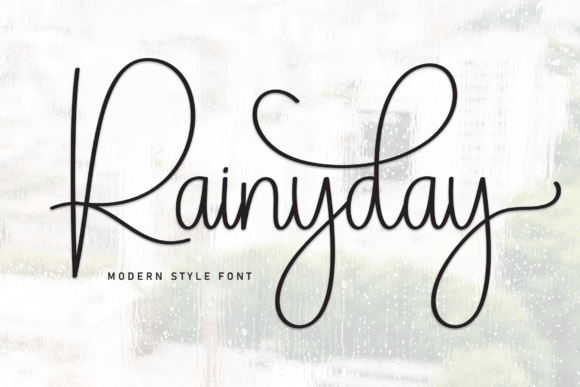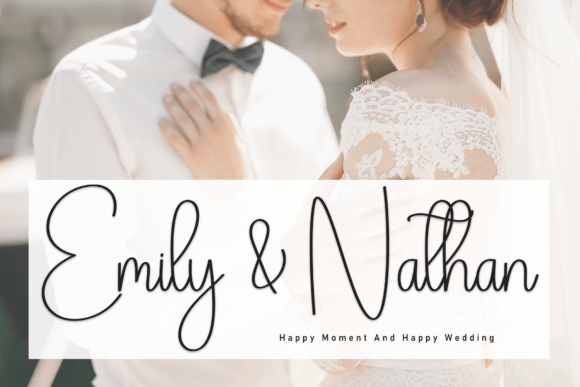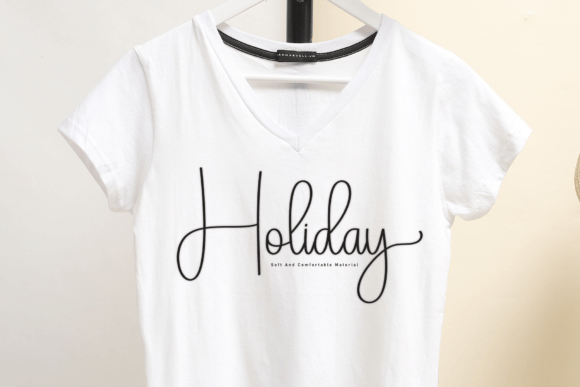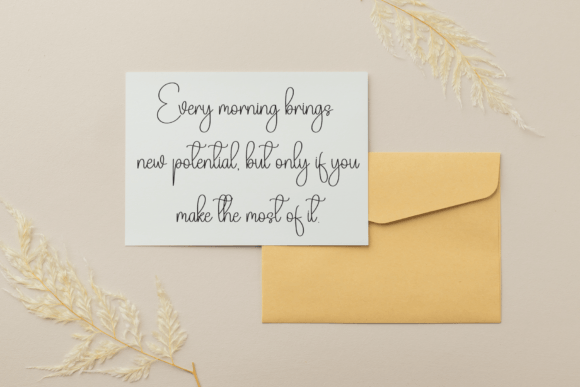
Rainyday Font
About the Rainyday Font
The Rainyday Font is here to transform your projects with its distinctive character and style. Rainyday is a modern and exquisite handwritten font. Stylish, graceful, and flowing, this font will definitely elevate the look of any of your beautiful creations while keeping them grounded and natural.
Rainyday excels in applications requiring a touch of elegance and handcrafted charm. It’s ideal for short headlines, branding elements such as logos and taglines, and even select packaging designs where a sophisticated, yet approachable feel is desired. Consider it for invitations, quotes, or short-form marketing materials. Avoid using it for large blocks of body text or UI elements; its handwritten nature makes extended reading difficult.
Pairing Rainyday effectively requires consideration of its flowing, slightly informal nature. A clean sans-serif like Montserrat or Lato provides a strong contrast and excellent readability for supporting text. For a more playful feel, a rounded geometric sans-serif such as Circular Std could be used. Conversely, a classic serif like Garamond would offer a sophisticated counterpoint, enhancing Rainyday’s inherent elegance.
Rainyday’s overall personality is sophisticated yet approachable; elegant, but not overly formal. Its handwritten quality suggests a friendly and inviting tone, making it suitable for brands emphasizing handcrafted goods, artisanal products, or a personal, human touch.
Rainyday Font Usage Examples
Rainyday Font Example